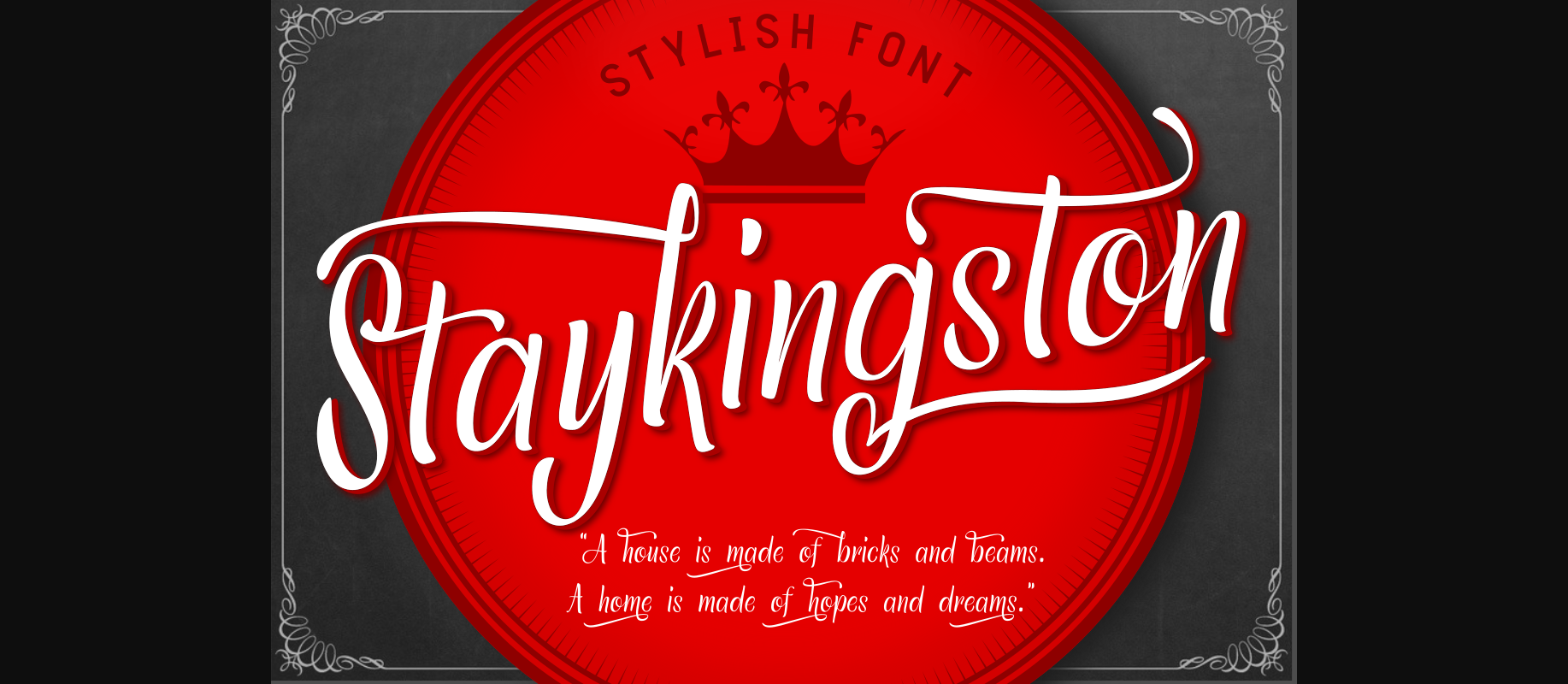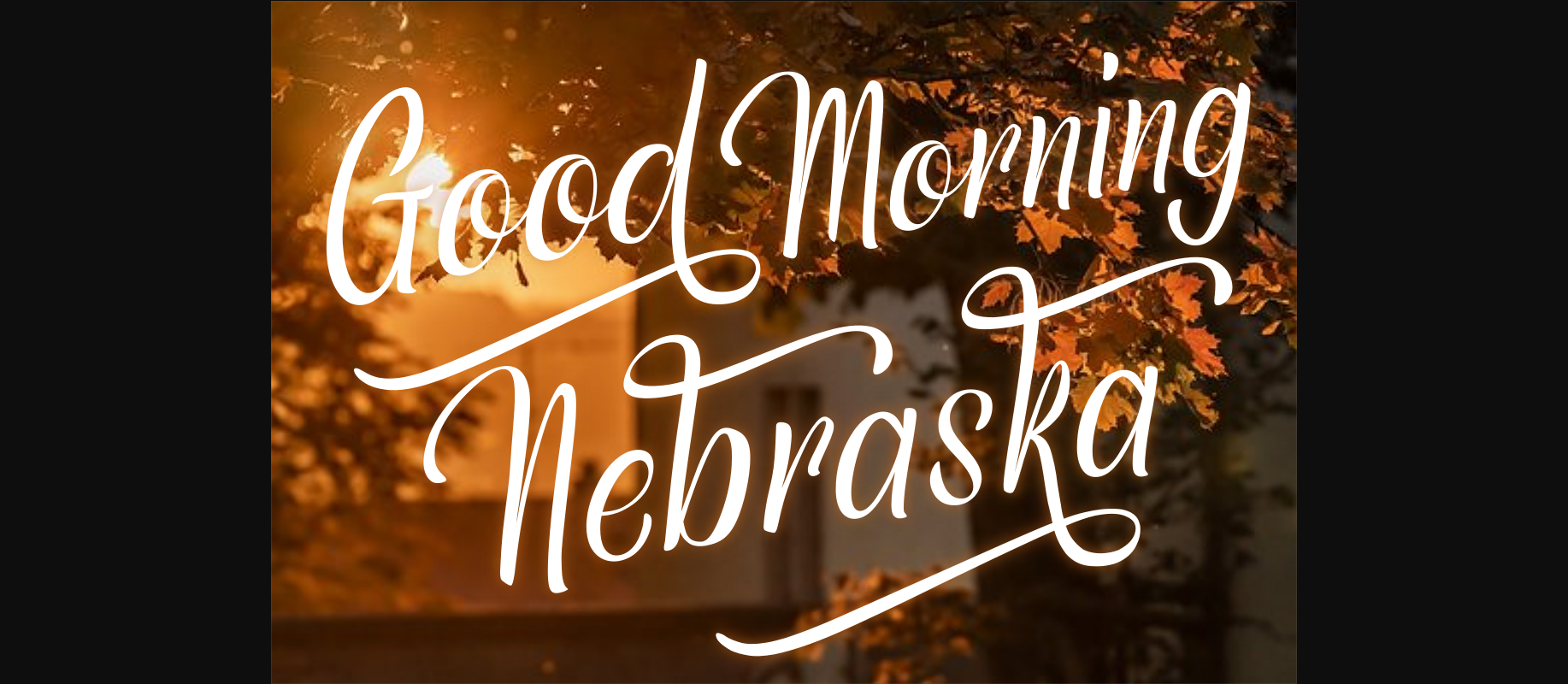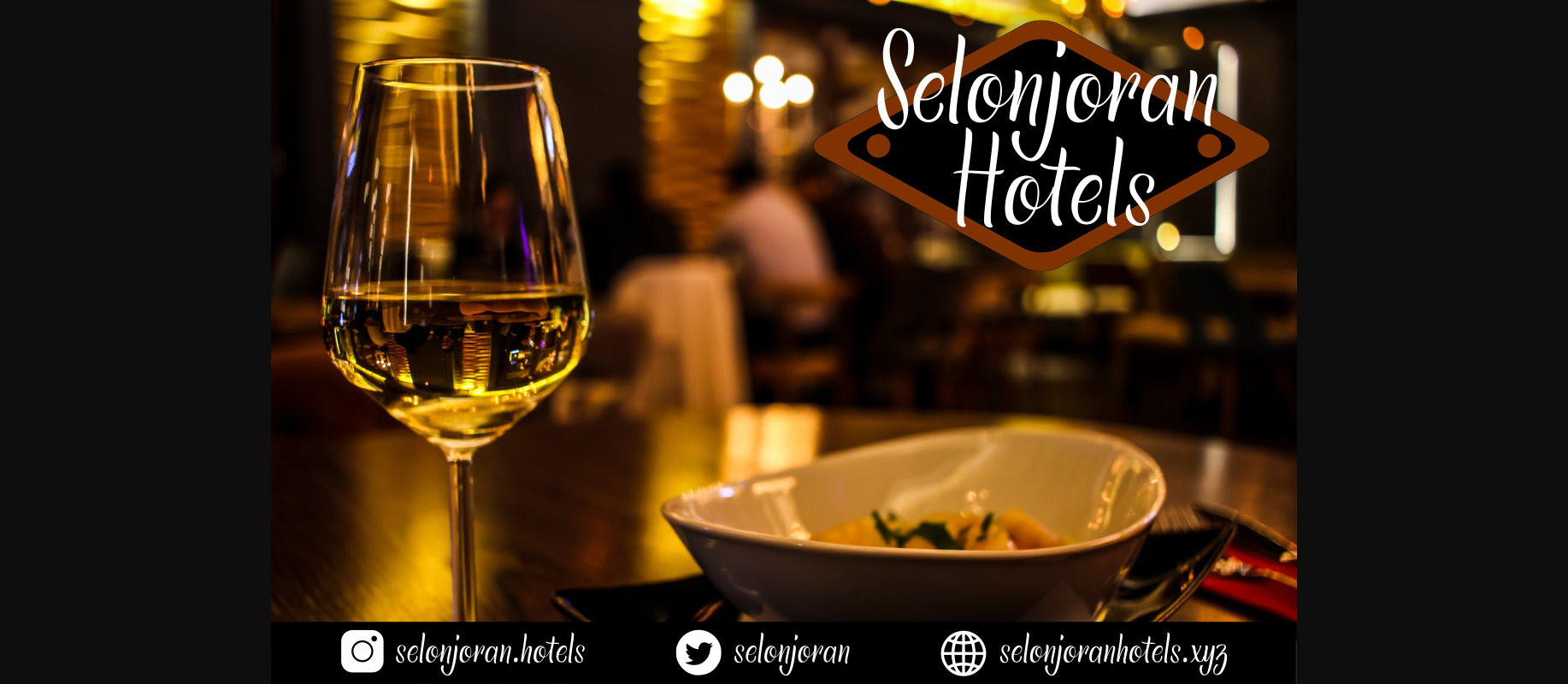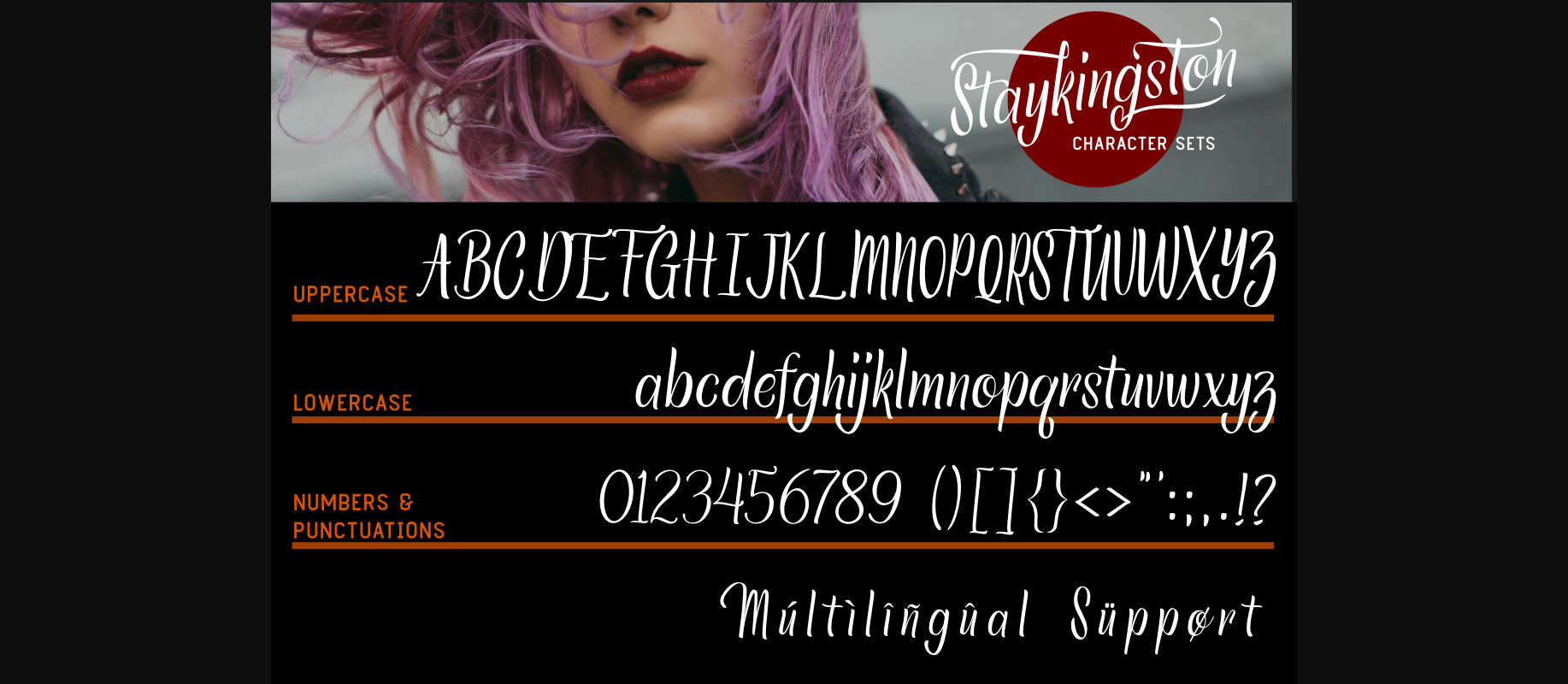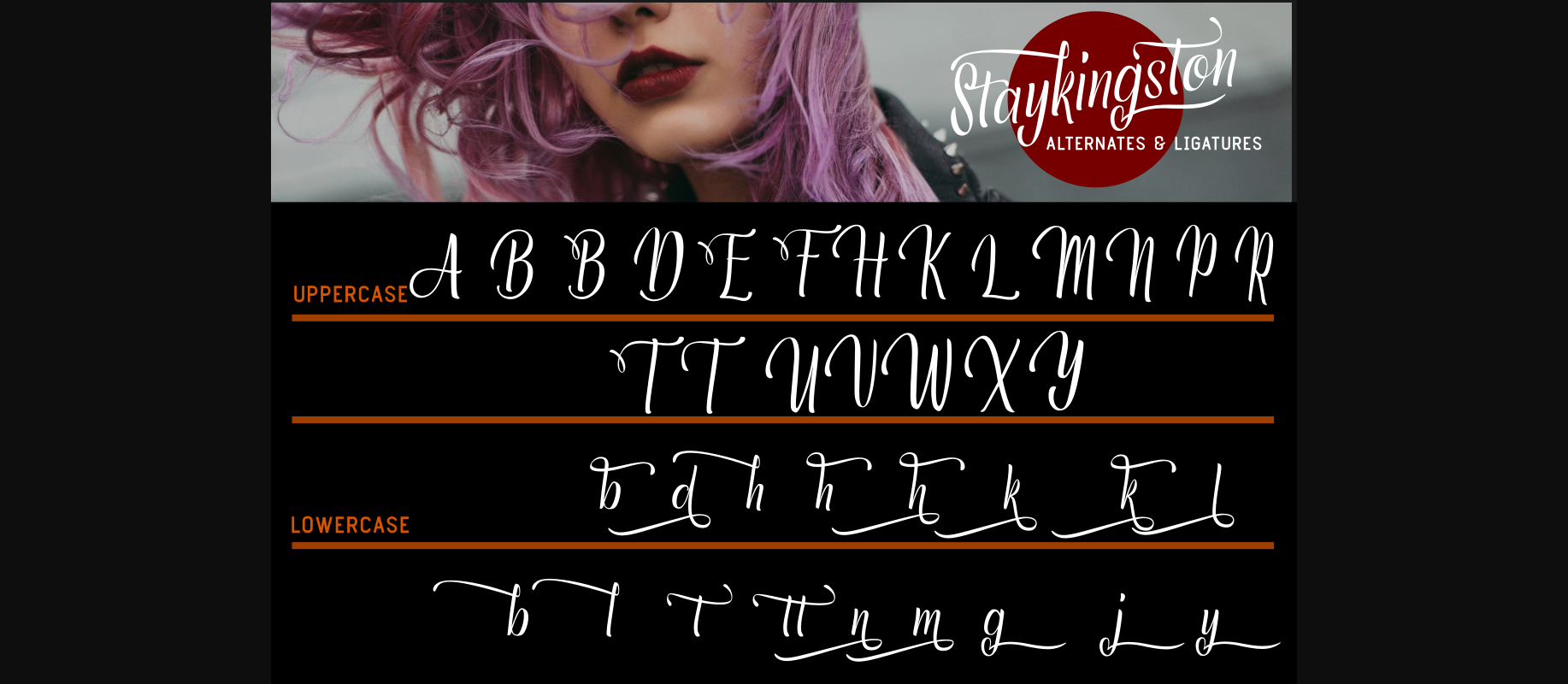
About Staykingston Font
Staykingston simplifies elegance into one truly outstanding decorative font. This font is the perfect fit for all of your logos, branding, social media, and crafty DIY projects.